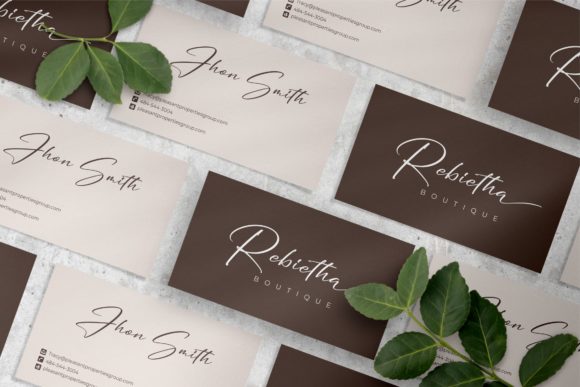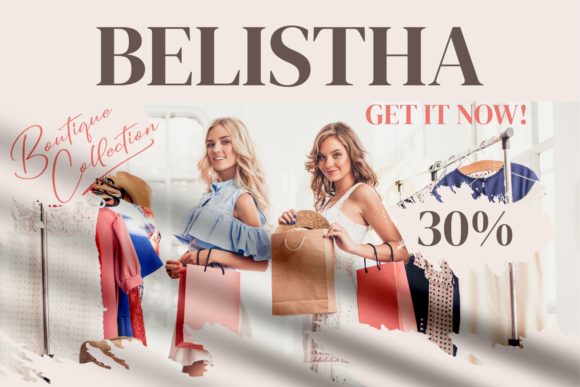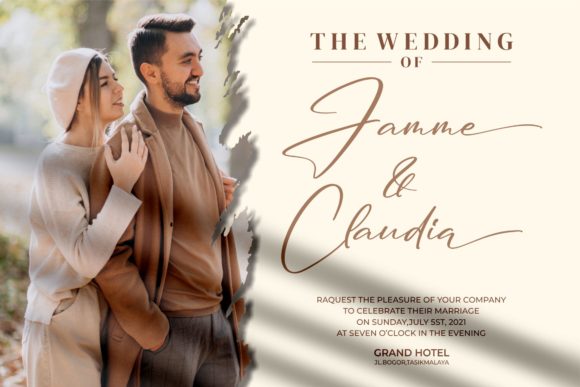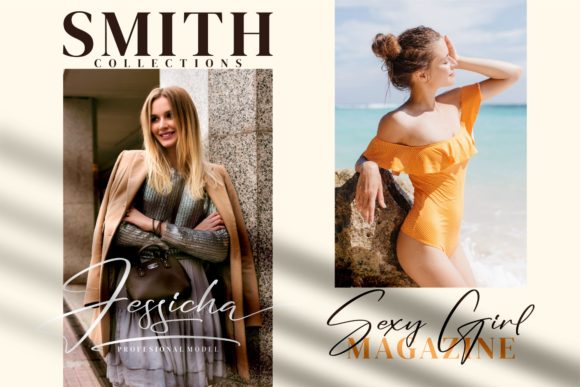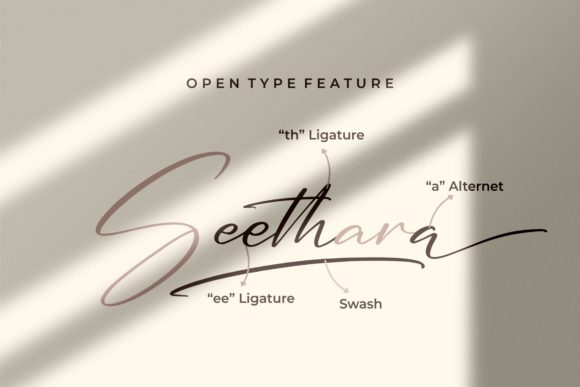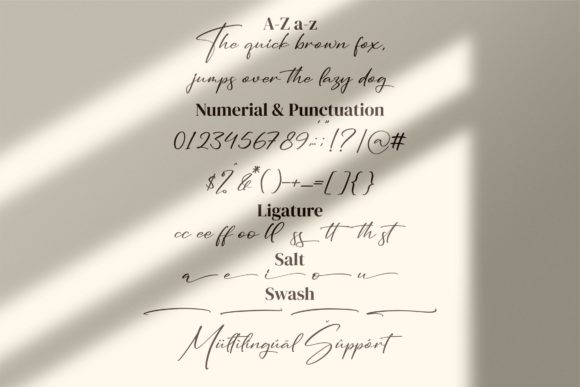
Introduction to Seethara Font Font
Fonts play a crucial role in design, and the Seethara Font font is a typeface that brings both character and versatility to any project. Whether you’re working on a branding project, a website, or a print design, the Seethara Font font offers a unique style that can elevate your work.
Seethara is a thin lettered and graceful script font.
Fall for its ravishing style and use it to create gorgeous wedding invitations, beautiful stationary art, eye-catching social media posts, and much more .
Key Features of Seethara Font Font
Why Choose Seethara Font Font?
The Seethara Font font is more than just a typeface – it’s a design tool that helps you communicate your message with style and clarity. Its unique character set and versatile design make it suitable for a wide range of applications, from elegant invitations to bold headlines.
With its carefully crafted letterforms and balanced proportions, the Seethara Font font ensures readability and visual appeal across all mediums.
What makes Seethara Font font special?
The Seethara Font font stands out with its unique design, exceptional readability, and versatility across various design applications.